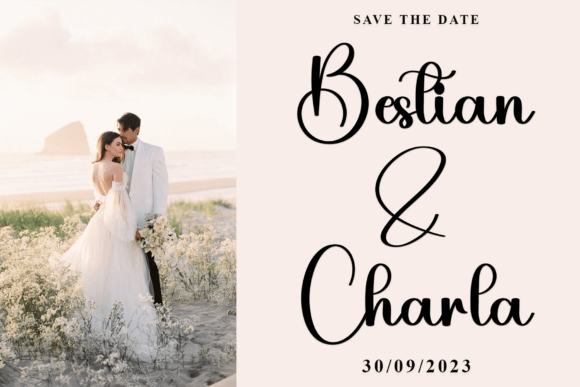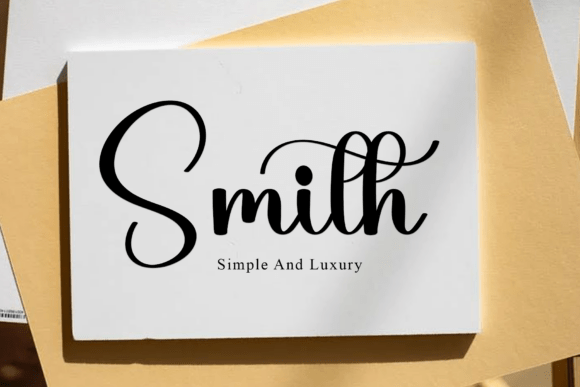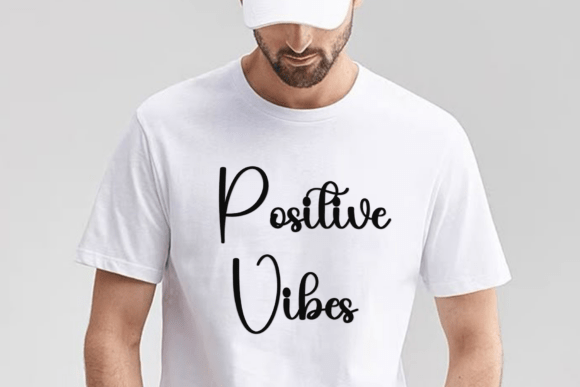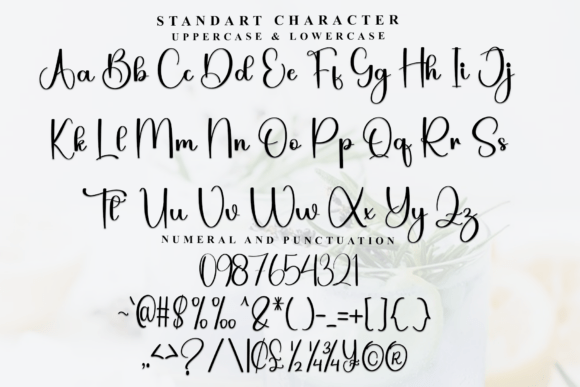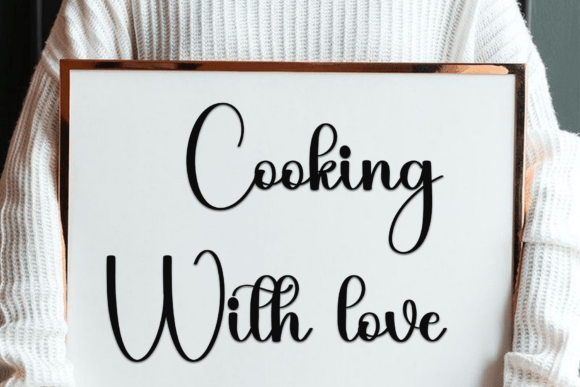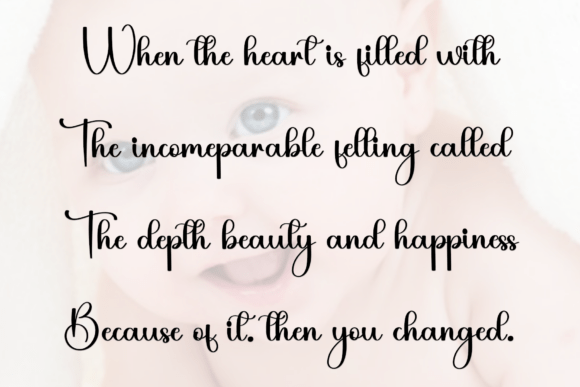
Introducing Another Font: Elevate Your Designs with Elegance and Sophistication
In the world of typography, fonts play a crucial role in conveying the tone and personality of a design. For designers and crafters seeking to add a touch of elegance and refinement to their work, Another Font is an exceptional choice. This modern script font boasts a graceful, flowing style and beautiful swashes, making it perfect for a variety of applications, from branding and wedding invitations to logos, quotes, and product packaging.
The Characteristics of Another Font
Another Font is distinguished by its delicate and refined feel, which is achieved through its slender lines, beautiful swashes, and classic letterforms. This font is designed to bring a sense of sophistication and luxury to any design, making it an ideal choice for projects where a high-end look is desired. The flowing style of Another Font ensures that text flows smoothly and elegantly, creating a visually appealing reading experience.
Uses of Another Font
The versatility of Another Font makes it suitable for a wide range of design applications. Here are some of the key areas where this font can make a significant impact:
- Branding: Establish a strong brand identity with Another Font. Its elegant style is perfect for creating logos, business cards, and other branding materials that require a sophisticated look.
- Wedding Invitations: Add a touch of romance and elegance to wedding invitations, save-the-date cards, and other wedding-related stationery with Another Font.
- Logos: Create unique and memorable logos for businesses, products, or services that require a refined and luxurious feel.
- Quotes and Typography: Use Another Font to create visually stunning quotes, posters, and typographic artworks that showcase the beauty of the font.
- Product Packaging: Elevate product packaging with Another Font, adding a touch of sophistication and elegance to labels, boxes, and other packaging materials.
Why Choose Another Font?
With so many fonts available, why choose Another Font for your design projects? Here are some compelling reasons:
- Unique Style: Another Font offers a distinctive and elegant style that sets it apart from more traditional fonts.
- Versatility: This font can be used across a variety of design applications, making it a valuable addition to any designer’s font library.
- Ease of Use: Another Font is easy to read and works well in both digital and print formats, making it a practical choice for designers.
- High-Quality Design: Crafted with attention to detail, Another Font is a high-quality font that reflects a professional and polished aesthetic.
Tips for Using Another Font Effectively
To get the most out of Another Font, consider the following tips:
- Pair with Complementary Fonts: Combine Another Font with sans-serif fonts for contrast and visual interest.
- Adjust Font Sizes: Experiment with different font sizes to create hierarchy and emphasis in your designs.
- Utilize Swashes: Take advantage of the elegant swashes in Another Font to add decorative touches to your designs.
- Consider Line Spacing: Ensure adequate line spacing to maintain readability and flow.
Another Font is a versatile and elegant script font that can elevate any design project. Its graceful, flowing style and beautiful swashes make it perfect for designers and crafters seeking to add a touch of sophistication and luxury to their work. Whether you’re creating branding materials, wedding invitations, logos, quotes, or product packaging, Another Font is an excellent choice. With its unique style, versatility, and high-quality design, Another Font is sure to become a valuable addition to your font library.